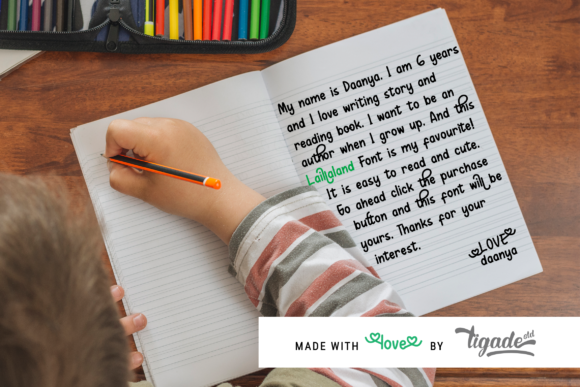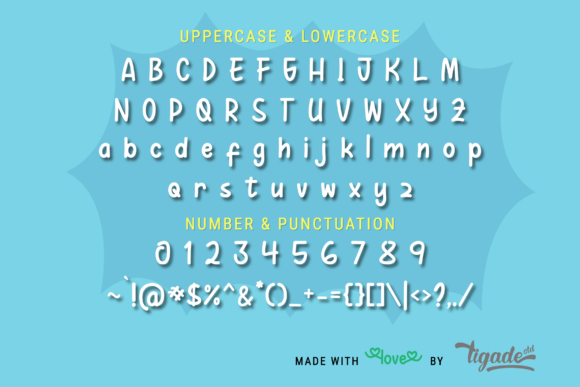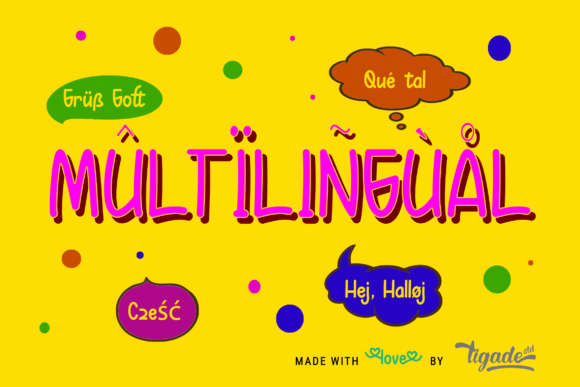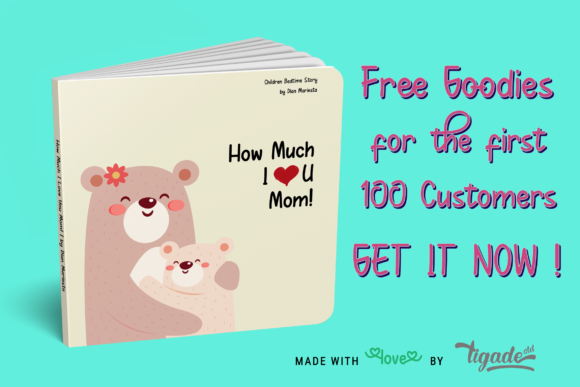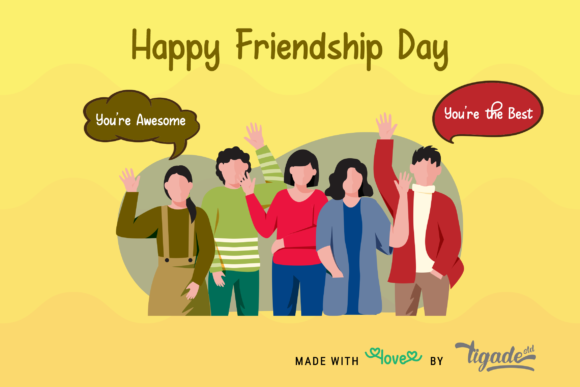
Laillaland Font
About Laillaland Font
Lailaland is beautiful handwritten font carefully created with a touch of elegance. Fall in love with its authentic feel and use it to create gorgeous wedding invitations, beautiful stationary art, eye-catching social media posts, and cute greeting cards.